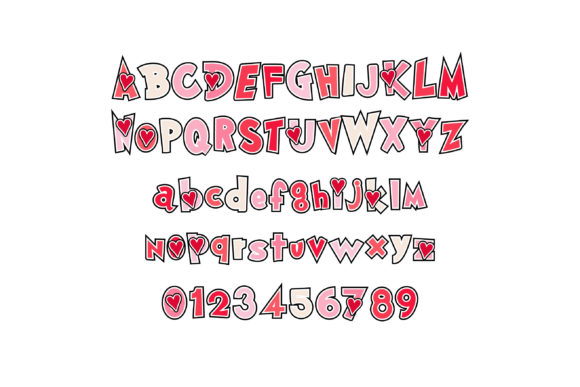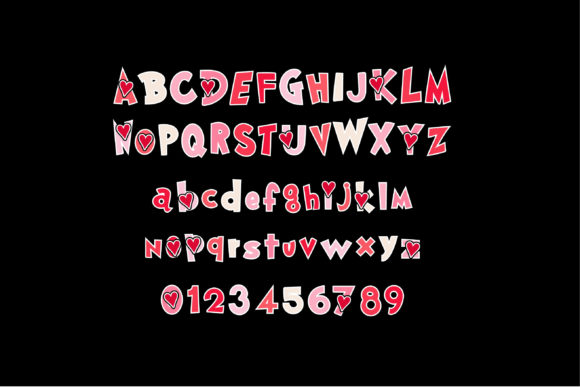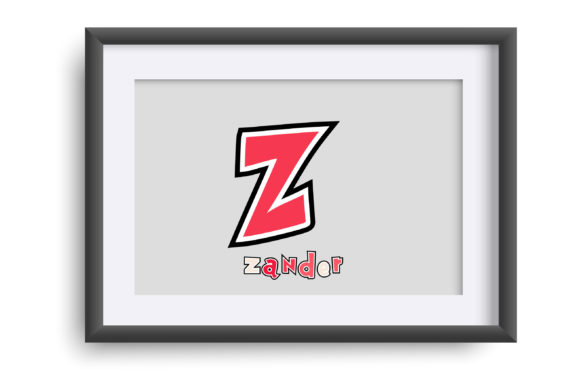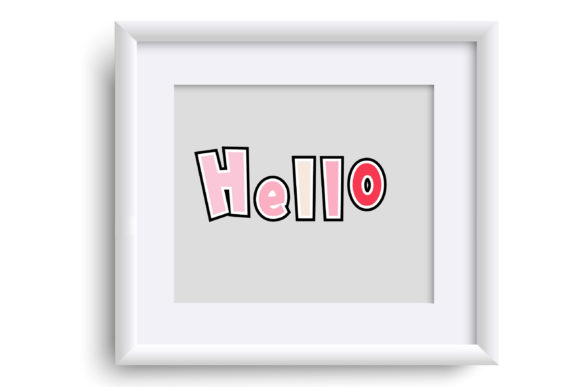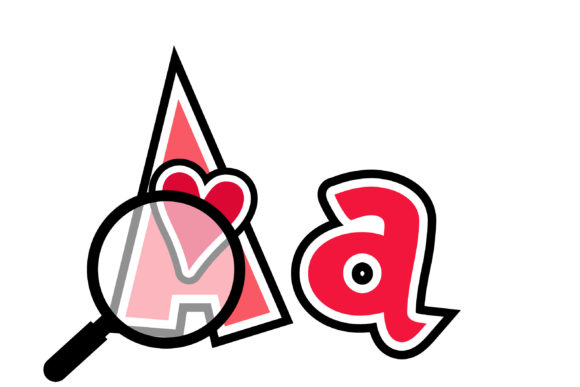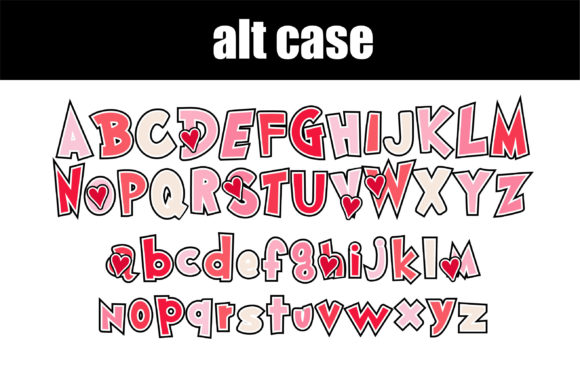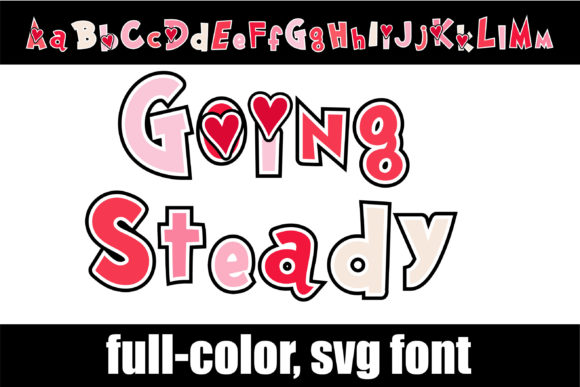
Introducing Going Steady Font: A Complex and Cool Color Font for Creative Designs
Are you tired of using the same old fonts for your designs? Look no further than Going Steady Font, a unique and creative color font that’s sure to take your projects to the next level. With its mixed and whimsical lettering, red/pink color palette, and PUA encoding, this font is perfect for designers and crafters looking to add a touch of personality to their work.
What Makes Going Steady Font So Special?
Going Steady Font is a complex and cool color font that features a one-of-a-kind design. Its creative, mixed lettering style is sure to grab attention and add a touch of whimsy to any project. The font’s red/pink color palette is both bold and feminine, making it perfect for a wide range of designs, from romantic wedding invitations to fun and playful party decor.
Uses for Going Steady Font
So, what can you use Going Steady Font for? The possibilities are endless! Here are a few ideas to get you started:
- Party decor and invitations
- Craft projects, such as card making and scrapbooking
Tips for Getting the Most Out of Going Steady Font
To get the most out of Going Steady Font, here are a few tips:
- Experiment with different colors and combinations to find the perfect look for your project
- Use the font’s built-in glyphs and swashes to add an extra layer of interest and depth to your designs
- Don’t be afraid to get creative and try new things – Going Steady Font is all about having fun and expressing yourself!